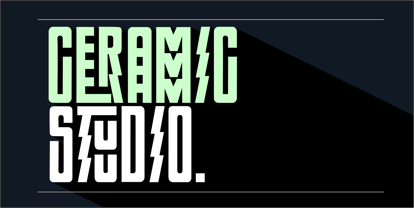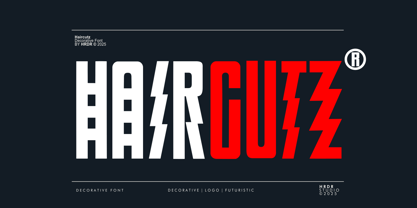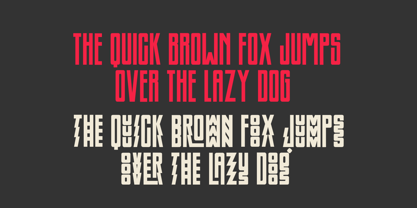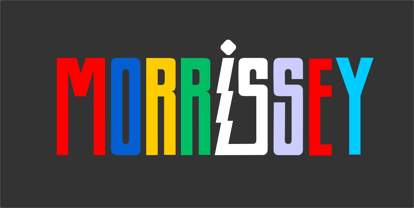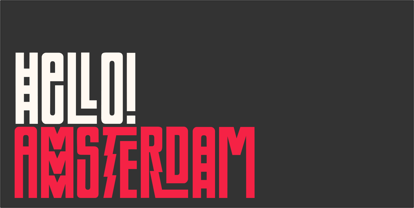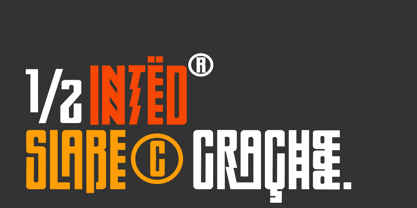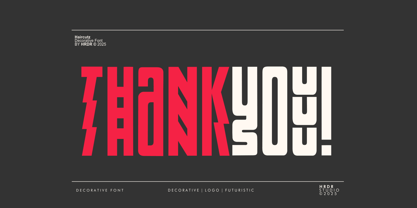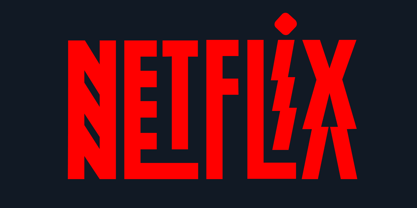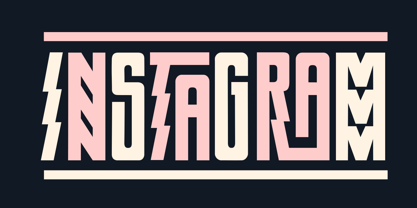
Haircutz
by HRDR
The Haircutz Font Family was designed by Dede Mulyadi and published by HRDR. Haircutz contains 1 styles. More about this family
Haircutz is a Decorative sans serif font characterized by its modern, elegant, and cool design. It effortlessly combines an elegant and classy appearance with a stylish and contemporary look, making it both up-to-date and easy to use.
Designers: Dede Mulyadi
Foundry: HRDR